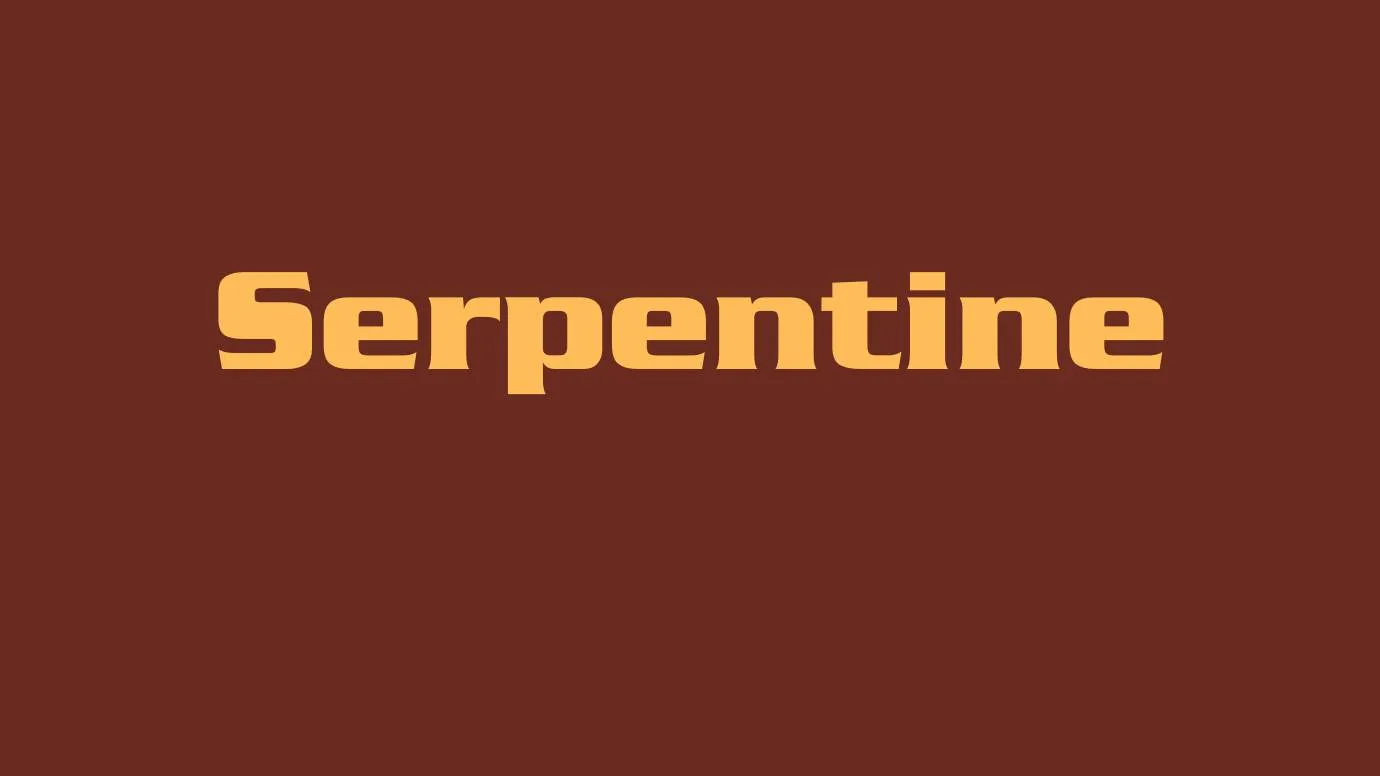
Serpentine Font Family is a sans-serif font family, expansive with over 15 distinct fonts. Every font in this family is versatile, featuring 5 weights. Created by the American graphic and typeface designer, Dick Jensen, in 1972.
The font contains 3 types, including alt, traditional and Italic and this will look more good when used with arvo font . Each type consists of 9 weights, be it heavy or skinny, that resulted in more than 25 styles.
Serpentine Font Family
NameSerpentine Font
DesignerDick Jensen
FoundryURW Type Foundry.
Date Released1972